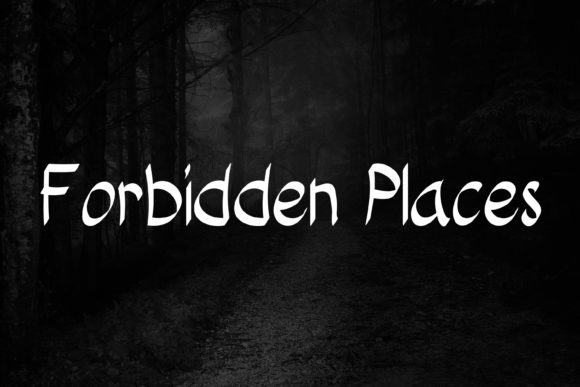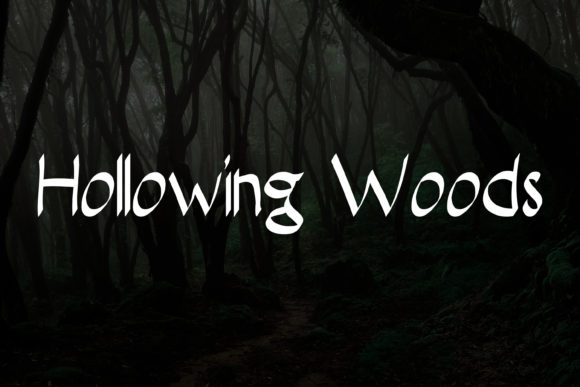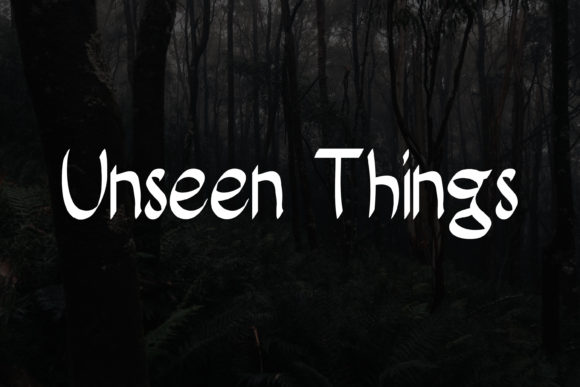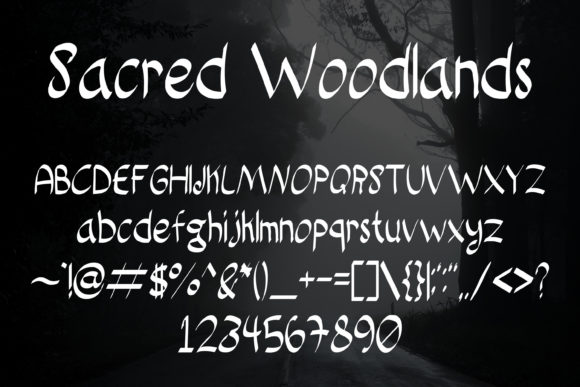
Introduction to Sacred Woodlands Font
As you sit in front of your computer, trying to find the perfect font for your next creative project, you can’t help but feel a sense of overwhelm. With so many options available, it’s easy to get lost in the sea of choices. But what if I told you that there’s a font that can take your designs to the next level, adding an air of elegance and sophistication to your work?
Enter the Sacred Woodlands Font, a stunning handwritten font that’s perfect for designers looking to add a touch of whimsy and charm to their projects. With its flowing lines and organic feel, this font is sure to captivate your audience and leave a lasting impression.
Key Features of Sacred Woodlands Font
- Unique, hand-drawn design perfect for creative projects that require a touch of nature
- Perfect for designers looking for a distinctive, high-quality font to enhance their creative projects
Honest Review: Sacred Woodlands Font
I recently had the opportunity to work with the Sacred Woodlands Font, and I must say it’s been a game-changer for my creative projects. The font’s unique blend of natural elements and whimsical flair adds a touch of magic to any design.
- What works well: ✨ The font’s high quality and versatility make it an excellent addition to any design resource library. Its transparent background allows for seamless integration into various design elements.
However, there are a few limitations to consider. ⚠️ The font’s compatibility with certain software can be a bit finicky, and some users may experience issues with font rendering. Additionally, the font’s limited character set may not be suitable for longer texts or formal documents.
Overall, I’m thoroughly impressed with the Sacred Woodlands Font. Its unique design and high quality make it a valuable addition to any design resource library. While it may have some limitations, I believe the benefits far outweigh the drawbacks.
Designing with Sacred Woodlands Font
The Sacred Woodlands Font is a unique and high-quality design resource that can add a touch of elegance to your creative project. With its transparent background, this font is perfect for adding subtle texture and depth to your designs.
Tips for Getting the Most Out of Sacred Woodlands Font
To get the most out of the Sacred Woodlands Font, experiment with different font sizes, colors, and combinations with other design elements.
The Sacred Woodlands Font is perfect for:
- Brand identity and logo design
- Print and digital advertising